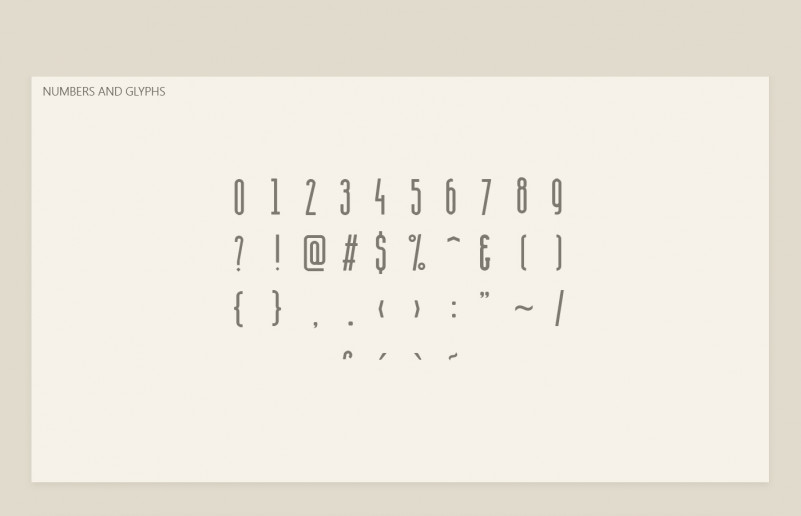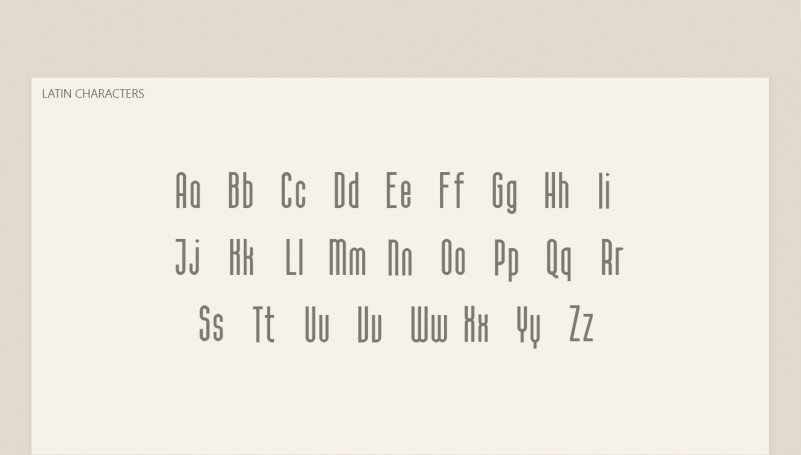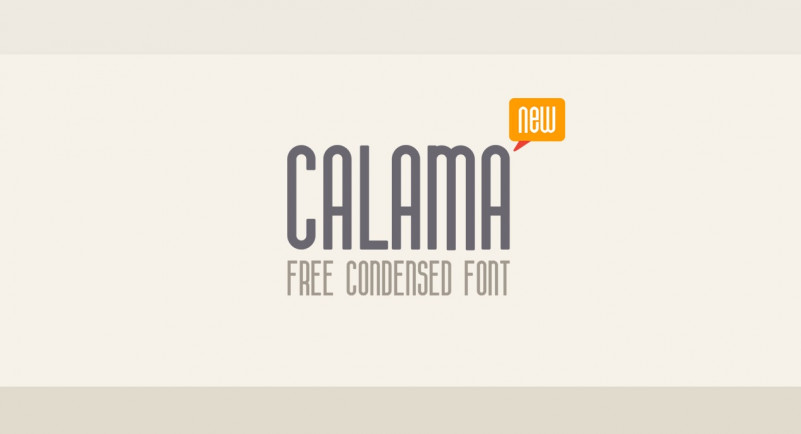
Calama Font
Calama Sans Serif Font – A free condensed font. Calama Typeface designed and shared by Ben Karamyan. Calama is a condensed geometric sans serif with rounded corners. The font is suitable for headlines, posters, titles and captions.